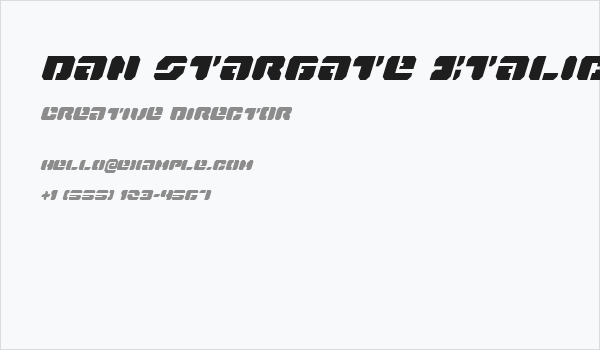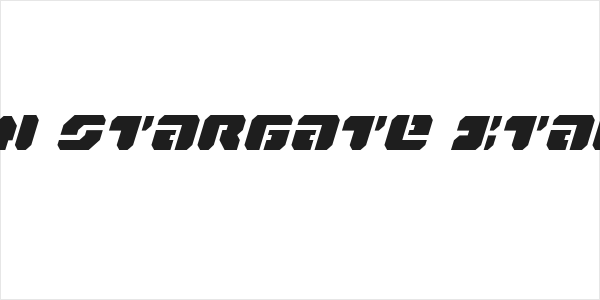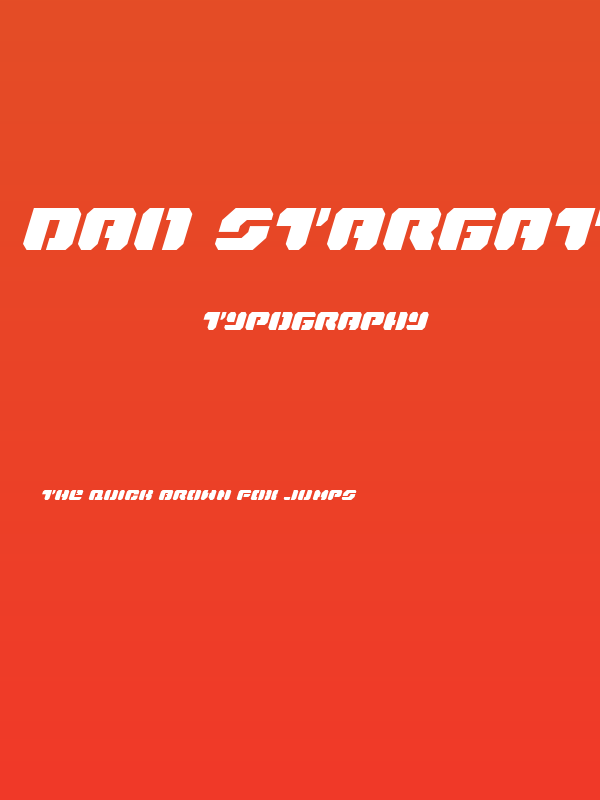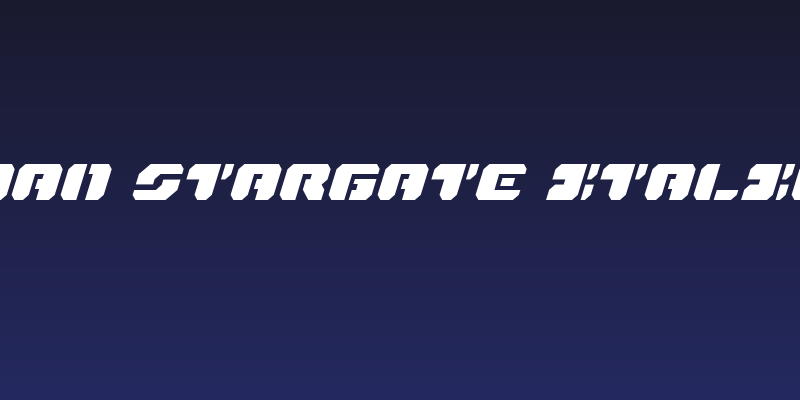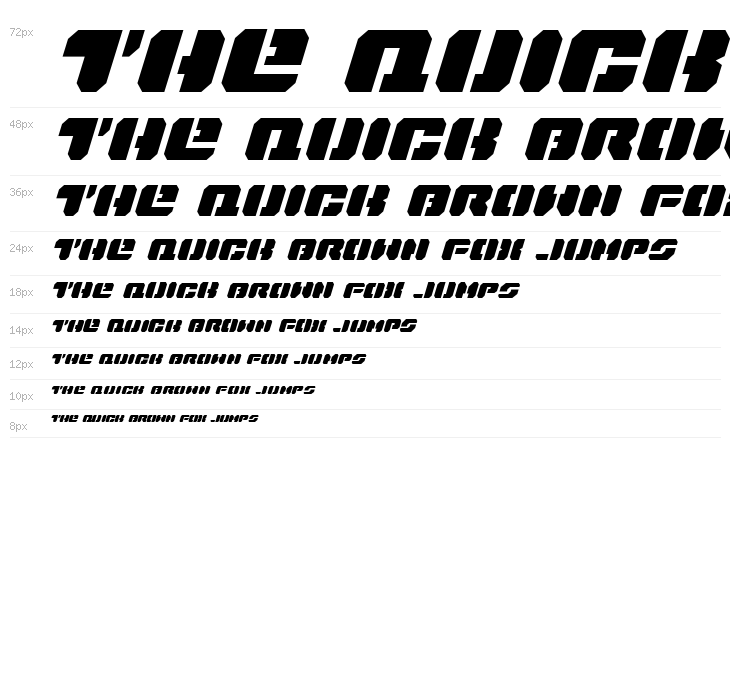
Dan Stargate Italic Font
Dan Stargate Italic Description
This font features a futuristic and bold design with a distinct italic slant. The characters are constructed with sharp angles and geometric shapes, giving it a modern and dynamic appearance. The uppercase and lowercase letters maintain a consistent style, with a strong emphasis on horizontal and diagonal lines. The numbers and special characters follow the same design principles, ensuring uniformity across all glyphs. This font's unique style makes it stand out, ideal for projects that require a bold and innovative look.
Overall StyleFuturistic
Proposed ProjectsIdeal for sci-fi themed projects, technology branding, video game titles, and futuristic posters.